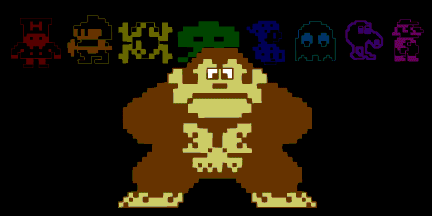
Arcade Characters
A dingbat set straight outta your arcade coin-ops. Yeah they're all here. Dig Dug, Ms. Pac-Man, Tron, Galaga, and the list goes on.